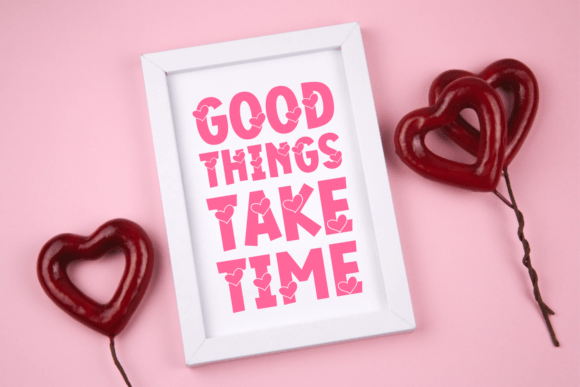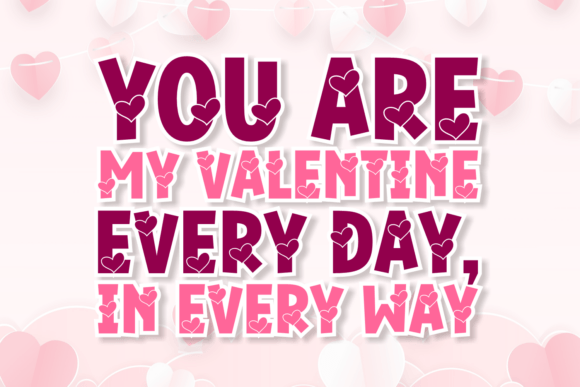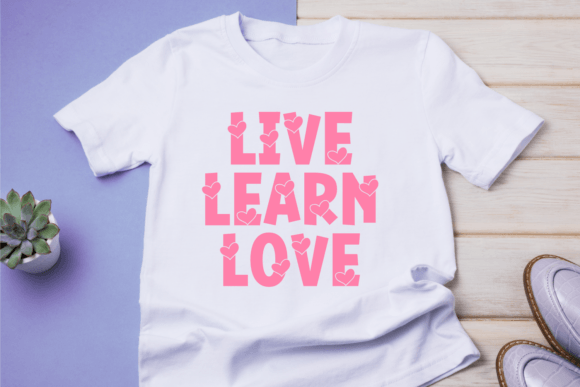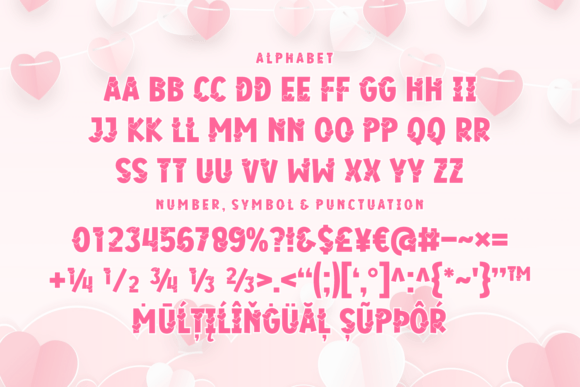
Introducing Dear Girls Font: The Ultimate Typographical Masterpiece for Lovely Projects
Are you a designer, crafter, or artist looking for a unique and captivating font to elevate your creative projects? Look no further than the Dear Girls font, a stunning typographical masterpiece that is sure to enchant your audience. This beautifully crafted font is adorned with charming heart-shaped notes, exuding a radiantly warm and loving atmosphere that is perfect for Valentine’s Day visuals, projects rooted in profound love, and mesmerizing children’s pursuits.
The Perfect Font for Valentine’s Day and Love-Inspired Projects
Valentine’s Day is just around the corner, and with it comes the need for creative and romantic designs that capture the essence of love and affection. The Dear Girls font is specifically designed to help you create stunning visuals that convey your message with a personal and whimsical touch. Whether you’re designing romantic cards, sweet treats, or lovely gifts, this font is sure to add an alluring flair to your creations.
A Font that Combines Affection and Artistry
The Dear Girls font is more than just a typographical tool – it’s a beautiful junction where affection encounters artistry. This font is carefully crafted to infuse your artistic expression with a whimsical twist, making it perfect for designers and crafters who want to add a personal touch to their work. With its playful spirit and charming heart-shaped notes, the Dear Girls font is sure to inspire your creativity and take your projects to the next level.
Key Features of the Dear Girls Font
- Charming Heart-Shaped Notes: The Dear Girls font features adorable heart-shaped notes that add a touch of whimsy and romance to your designs.
- Radiantly Warm and Loving Atmosphere: This font exudes a warm and loving atmosphere, making it perfect for projects that require a personal and affectionate touch.
- Playful Spirit: The Dear Girls font has a playful spirit that goes beyond the ordinary, adding an alluring personal flair to all your imaginative pieces.
- Perfect for Valentine’s Day and Love-Inspired Projects: This font is specifically designed for Valentine’s Day visuals, projects rooted in profound love, and mesmerizing children’s pursuits.
How to Use the Dear Girls Font in Your Projects
Using the Dear Girls font in your projects is easy and fun. Here are a few ideas to get you started:
- Valentine’s Day Cards and Gifts: Use the Dear Girls font to create stunning Valentine’s Day cards, gift tags, and wrapping paper.
- Children’s Projects: This font is perfect for children’s books, educational materials, and craft projects that require a playful and whimsical touch.
- Romantic Stationery: Use the Dear Girls font to create beautiful romantic stationery, including journals, notebooks, and letters.
- Digital Art and Graphics: This font can be used in digital art and graphics, such as social media graphics, blog posts, and website headers.
Tips and Tricks for Getting the Most Out of the Dear Girls Font
Here are a few tips and tricks to help you get the most out of the Dear Girls font:
- Experiment with Different Colors and Textures: Try pairing the Dear Girls font with different colors and textures to create unique and eye-catching designs.
- Use it in Combination with Other Fonts: Combine the Dear Girls font with other fonts to create interesting and dynamic typography.
- Pay Attention to Kerning and Spacing: Make sure to adjust the kerning and spacing to ensure that your text is easy to read and visually appealing.
| Font Name | Dear Girls Font |
| Author | Riman (7NTypes) |
In conclusion, the Dear Girls font is a beautiful and captivating typographical masterpiece that is sure to elevate your creative projects. With its charming heart-shaped notes, radiantly warm and loving atmosphere, and playful spirit, this font is perfect for designers and crafters who want to add a personal and whimsical touch to their work. Whether you’re designing for Valentine’s Day, children’s projects, or romantic stationery, the Dear Girls font is the perfect choice. So why wait? Download the Dear Girls font today and start creating stunning designs that capture the essence of love and affection.